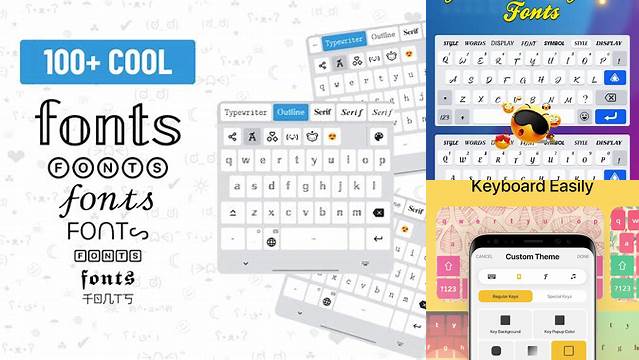
Hey guys! Ever feel like your phone's keyboard is just a little... blah? You know, the same old font, the same old look? Well, you're in luck! We're diving deep into the world of fonts app keyboard mod APKs, which can totally transform your typing experience. Think cool fonts, custom themes, and a keyboard that truly reflects your personality. Sounds awesome, right? Let's get started!
1. What is a Fonts App Keyboard Mod APK?
So, what exactly is a fonts app keyboard mod APK? Good question! Basically, it's a modified version of a fonts app that you can install on your Android device. These modded versions often unlock premium features that you'd normally have to pay for, like access to all the fonts, themes, and customization options. It's like getting the VIP treatment without spending a dime! But, as with anything modded, there are a few things you need to keep in mind, which we'll cover later. The main draw here is that you can completely overhaul your keyboard's appearance, making it way more fun and engaging to use. Imagine texting your friends with a super stylish script font or using a keyboard that lights up with every keystroke. The possibilities are pretty endless! Plus, a fonts app keyboard mod APK can often add extra features that the original app might lack, such as more emojis, GIF support, or even advanced autocorrect options. So, it's not just about looks; it's about functionality too. You can really personalize your entire messaging experience, making it uniquely yours. We all love to stand out from the crowd, and this is one way to do it, one keystroke at a time!
2. Benefits of Using a Fonts App Keyboard Mod APK
Okay, so why would you even want a fonts app keyboard mod APK? Well, the benefits are pretty sweet. First off, you get access to tons of premium fonts and themes for free. Think of all the cool, stylish, and unique looks you can give your keyboard! It's like having a whole wardrobe of keyboard skins at your fingertips. But it's not just about aesthetics, guys. A fonts app keyboard mod APK can also boost your productivity and make typing more enjoyable. When your keyboard looks good, you feel good, right? Plus, many mods come with extra features like enhanced autocorrect, gesture typing, and customizable layouts. This means you can type faster, more accurately, and with less effort. Imagine gliding your fingers across the screen and watching the words magically appear! It's a game-changer, especially if you're someone who spends a lot of time texting or writing on your phone. And let's not forget the fun factor! Customizing your keyboard is a great way to express your personality and add a little flair to your digital life. You can choose fonts that match your mood, themes that reflect your interests, and even add your own photos as keyboard backgrounds. It's like turning your phone into a canvas for your creativity. So, if you're looking for a way to spice up your typing game, a fonts app keyboard mod APK might be just what you need.
6. Top Fonts App Keyboard Mod APKs Available
Okay, now for the fun part: which fonts app keyboard mod APK should you actually try? There are tons out there, but let's highlight a few of the top contenders. One popular choice is Fonts Keyboard Mod APK. This one's a classic for a reason – it offers a huge library of fonts, themes, and customization options. You can really go wild and create a keyboard that's totally unique to you. Another great option is GO Keyboard Mod APK. This one's known for its sleek design and smooth performance. It also comes with a bunch of extra features, like gesture typing and emoji suggestions, which can make your typing experience even faster and more enjoyable. If you're looking for something a little more niche, you might want to check out Kika Keyboard Mod APK. This one's especially popular with gamers and anime fans, thanks to its cool themes and stickers. It's a great way to add some personality to your chats and stand out from the crowd. Of course, these are just a few examples, and there are many other fonts app keyboard mod APKs out there to explore. The best one for you will depend on your individual needs and preferences. So, do a little research, read some reviews, and don't be afraid to try out a few different options until you find the perfect fit. Happy typing!
7. Customizing Your Keyboard with a Mod APK
So, you've installed your fonts app keyboard mod APK, and you're ready to make it your own. Awesome! Customization is where the real fun begins. Most modded keyboard apps offer a ton of options for tweaking the look and feel of your keyboard. Let's start with fonts. This is the most obvious one, right? You'll typically have a huge library of fonts to choose from, ranging from elegant scripts to funky display fonts. Experiment with different fonts to find one that matches your style and personality. Next up, themes. Many modded keyboards come with pre-made themes that can instantly transform the look of your keyboard. These themes might include different color schemes, backgrounds, and even button styles. If you're feeling creative, you can often create your own custom themes from scratch. This is where you can really let your imagination run wild! You can choose your own colors, add custom backgrounds, and even change the shape and size of the keys. Another cool customization option is key layout. Some modded keyboards allow you to rearrange the keys to better suit your typing style. This can be especially useful if you have a non-standard keyboard layout or if you just want to optimize your typing speed. And let's not forget about extra features. Many modded keyboards come with bonus goodies like emoji suggestions, GIF support, and even custom dictionaries. These features can make your typing experience even more fun and efficient. So, take some time to explore the customization options in your fonts app keyboard mod APK. Play around with different settings, and don't be afraid to experiment. The goal is to create a keyboard that's not only functional but also a joy to use.
8. Troubleshooting Common Issues
Okay, let's be real: sometimes things go wrong. You've installed your fonts app keyboard mod APK, but something's not quite right. Don't panic! Most common issues are pretty easy to fix. One common problem is the keyboard not appearing. If this happens, the first thing to check is your keyboard settings. Make sure the modded keyboard is selected as your default keyboard. If it's not, just switch it over, and you should be good to go. Another issue you might encounter is the app crashing. This can be frustrating, but it's often caused by compatibility issues or bugs in the modded app. Try clearing the app's cache and data, or even reinstalling the app. If that doesn't work, you might need to try a different mod APK. Sometimes, the fonts don't display correctly. This can be due to a problem with the font files or a conflict with other apps on your device. Try clearing the app's cache and data, and make sure you have the latest version of the modded keyboard app installed. If you're still having trouble, try downloading the fonts again from a different source. And finally, you might run into performance issues, like lag or slow typing. This can be caused by the modded keyboard app using too many resources on your device. Try closing any other apps that are running in the background, and make sure your device has enough free storage space. If the problem persists, you might need to switch to a lighter keyboard mod. So, there you have it: some common issues and how to fix them. With a little troubleshooting, you'll be back to typing in style in no time!
9. Legal and Ethical Considerations
Let's take a moment to talk about something super important: the legal and ethical side of using a fonts app keyboard mod APK. It's not always a black-and-white issue, but it's definitely worth understanding the potential implications. First off, copyright infringement is a big one. Modding apps often involves bypassing copyright protections, which is technically illegal in many countries. This means that if you're using a modded app that unlocks features you'd normally have to pay for, you could be violating copyright law. Another thing to consider is the terms of service of the original app. Most app developers have terms of service that prohibit modding or reverse engineering their software. If you're caught using a modded version of their app, they could potentially ban you from using their services. There's also the ethical question of whether it's right to use a modded app instead of paying for the original. App developers put a lot of time and effort into creating their apps, and they rely on revenue from sales and in-app purchases to keep their businesses going. Using a modded app deprives them of that revenue, which could ultimately hurt the app development community. Of course, there are different perspectives on this issue. Some people argue that modding is a form of digital activism or that it's okay to use modded apps if you can't afford the original. But it's important to be aware of the potential legal and ethical implications before you decide to use a fonts app keyboard mod APK. Make sure you weigh the pros and cons carefully and make a decision that you feel comfortable with.
11. Font Styles and Their Meanings
Have you ever stopped to think about how much font styles can actually communicate? It's not just about the words you type; the way they look can say a lot too! With a fonts app keyboard mod APK, you've got a whole world of fonts at your fingertips, so let's explore what different styles can convey. First up, we've got serif fonts. Think Times New Roman or Georgia. These fonts have those little